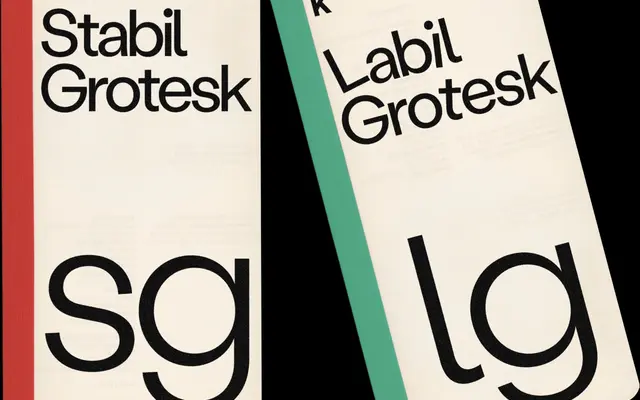
Stabil Grotesk
A grotesque sans from KOMETA Typefaces with a sturdy, upright construction suited to text and display work.
Stabil Grotesk is a grotesque sans from KOMETA Typefaces, drawing on the stable, rational forms associated with Central European type traditions. The name signals a typeface built for reliability across varied typographic contexts, from body text to headlines. Specific weight and feature details were not available from the page at time of cataloguing.
The name and foundry context strongly suggest a grotesque sans-serif in the Central European tradition; 'Stabil' implies a stable, sturdy grotesque construction.